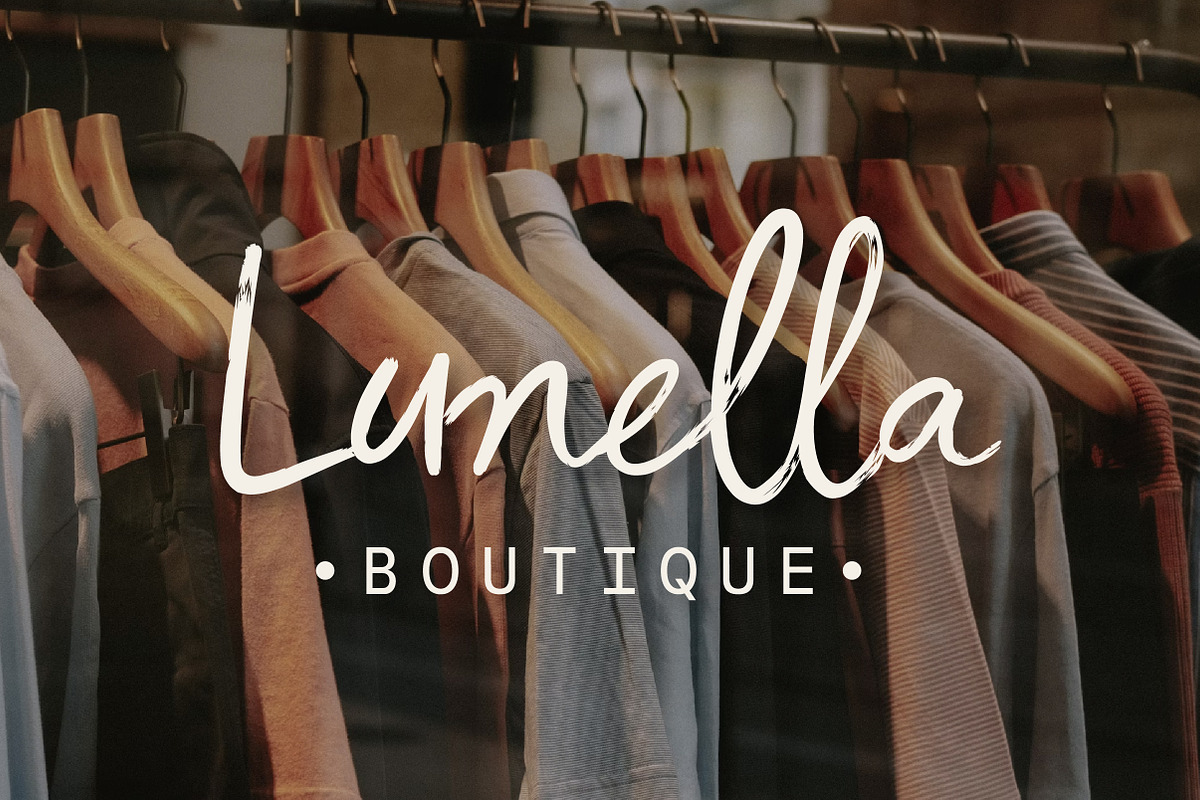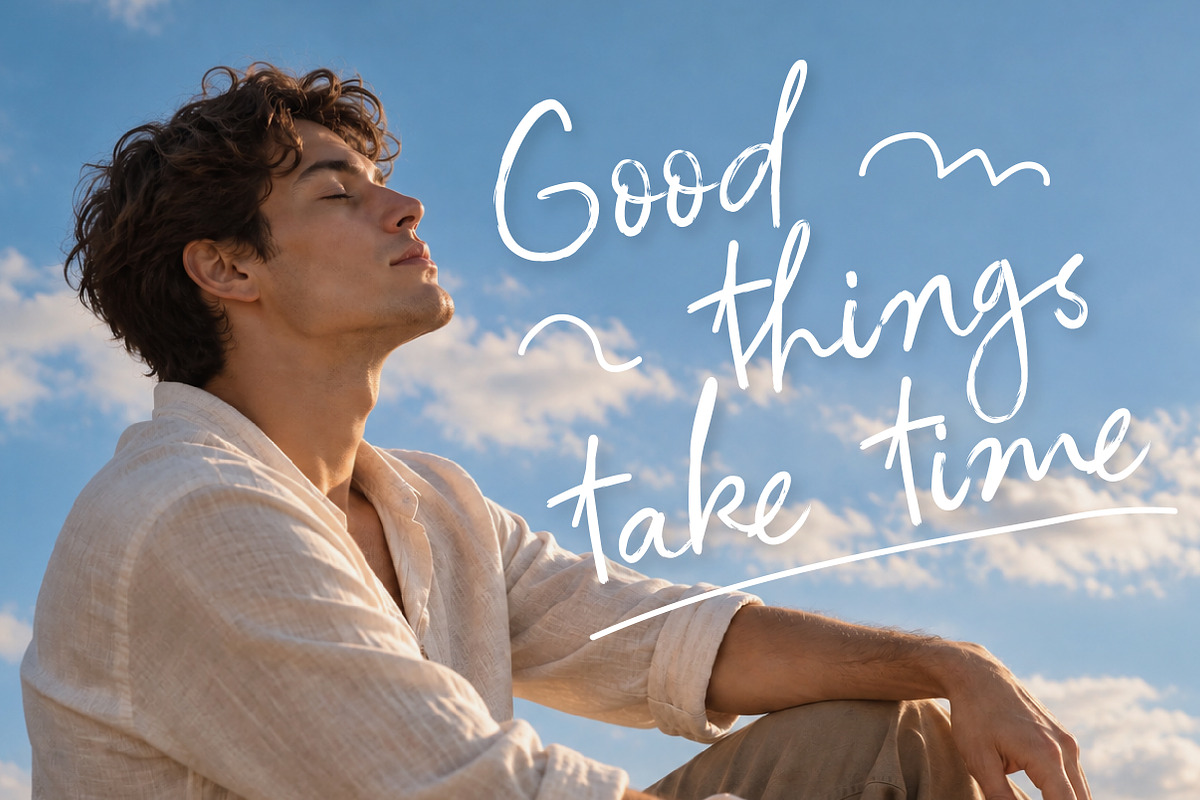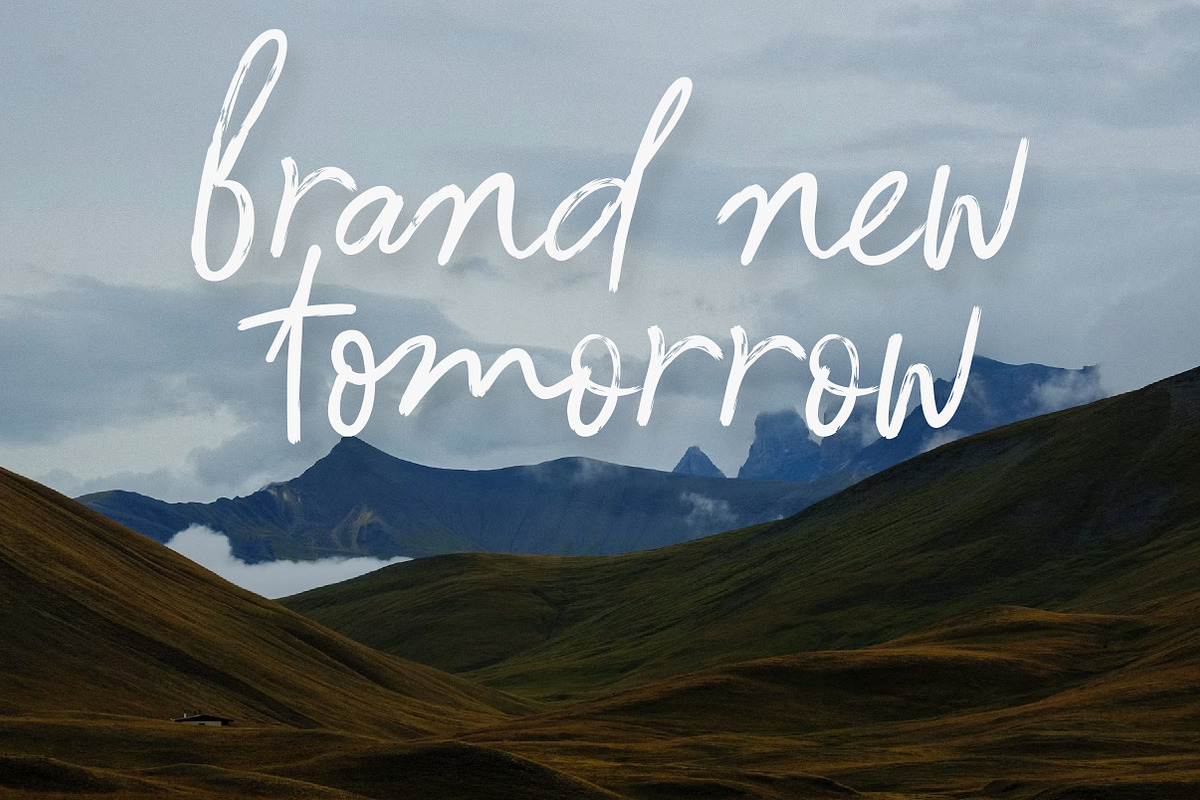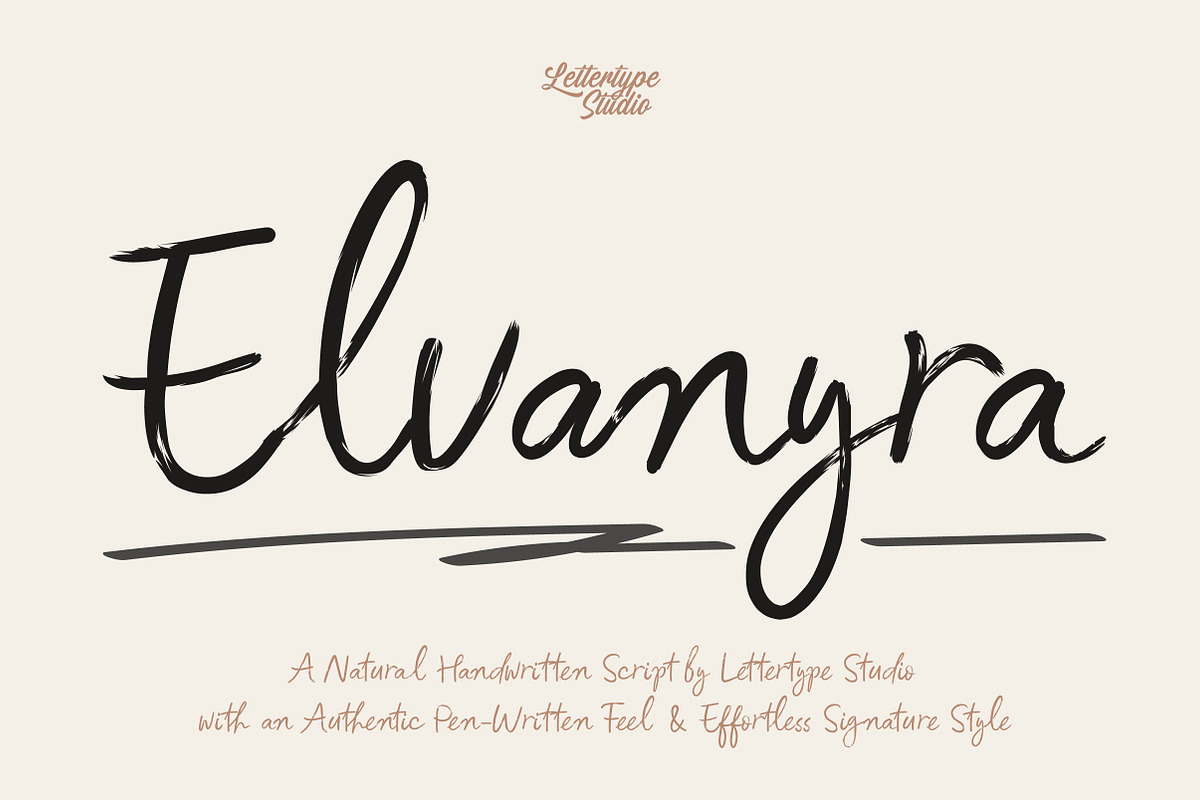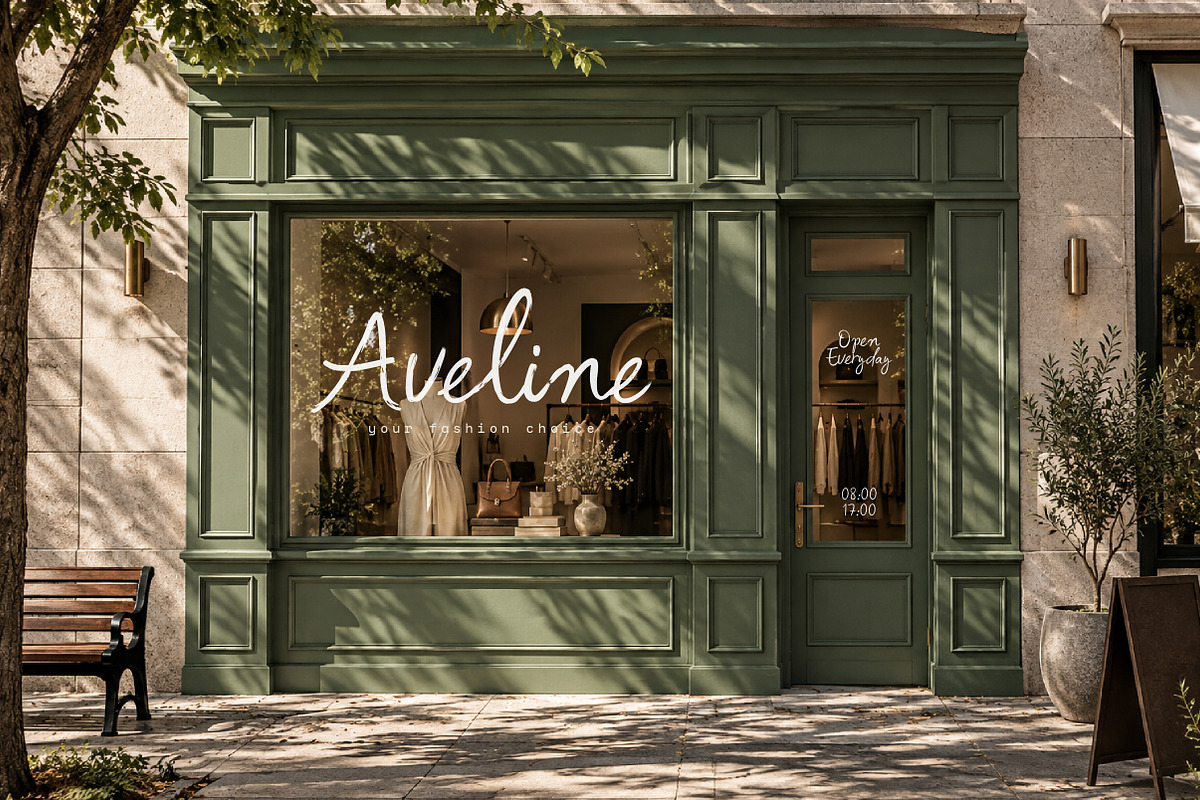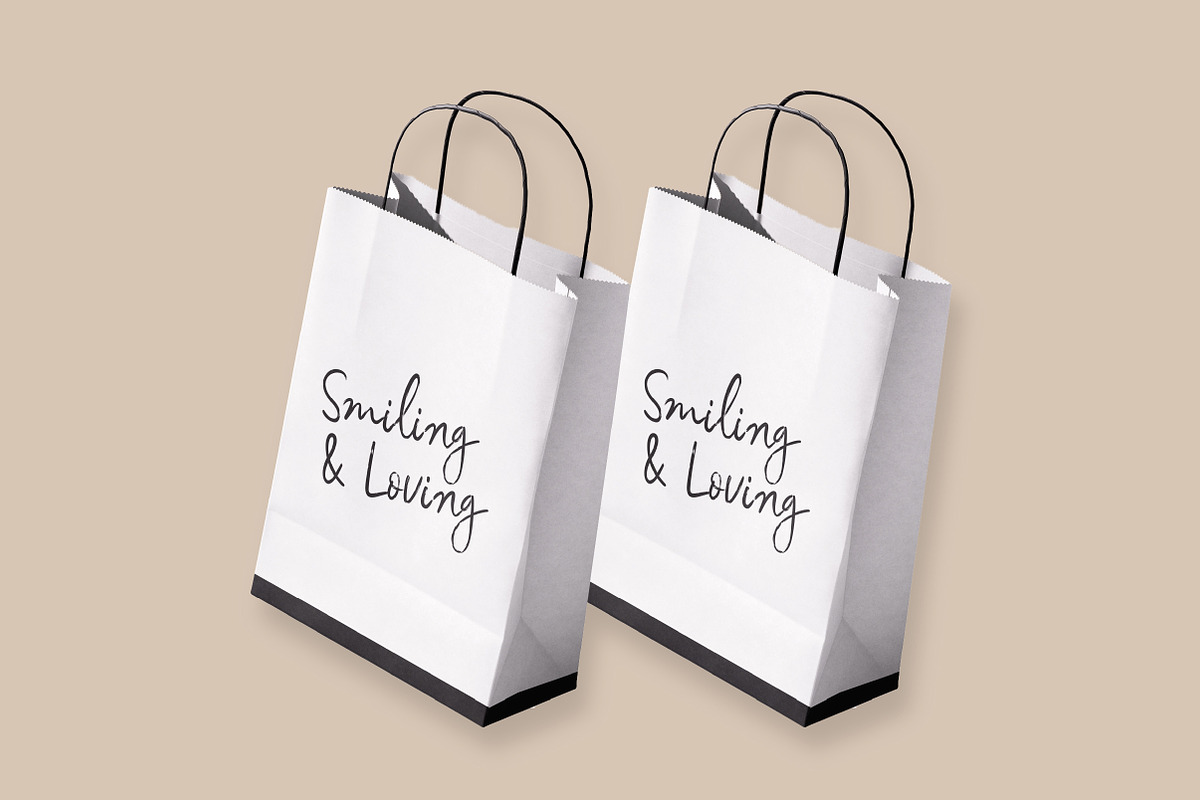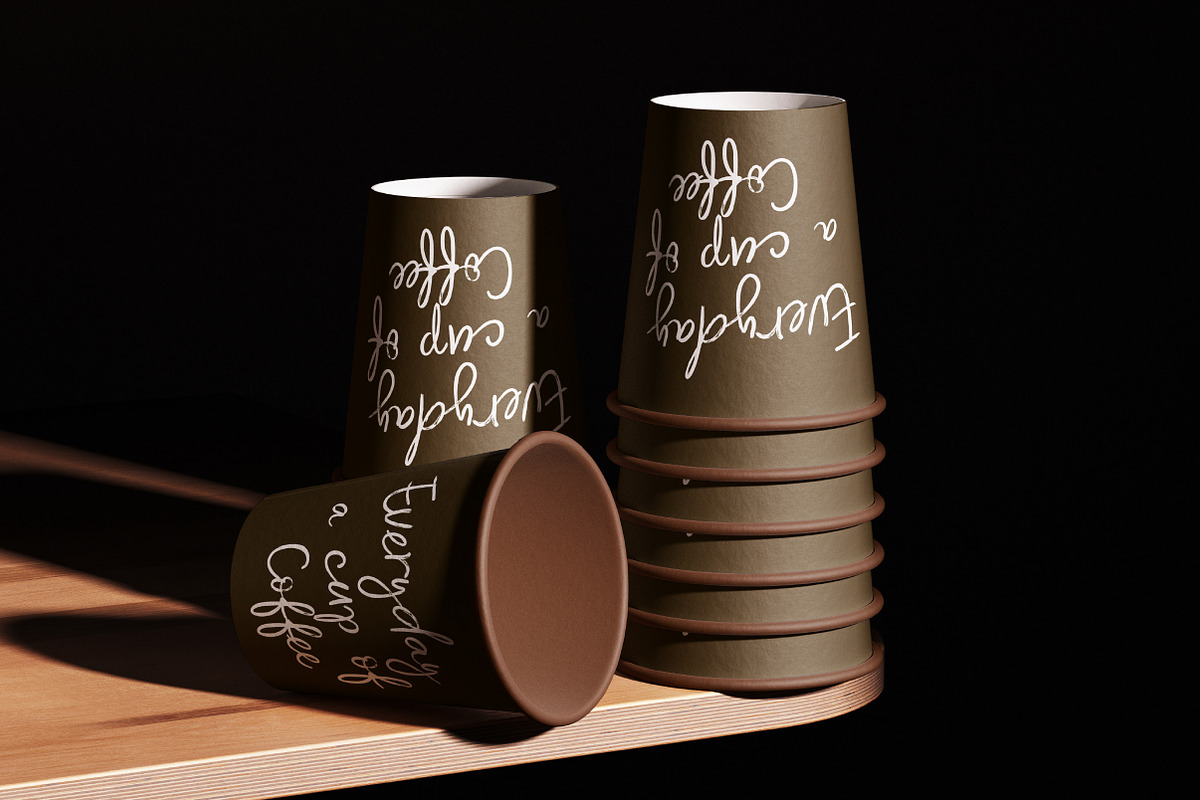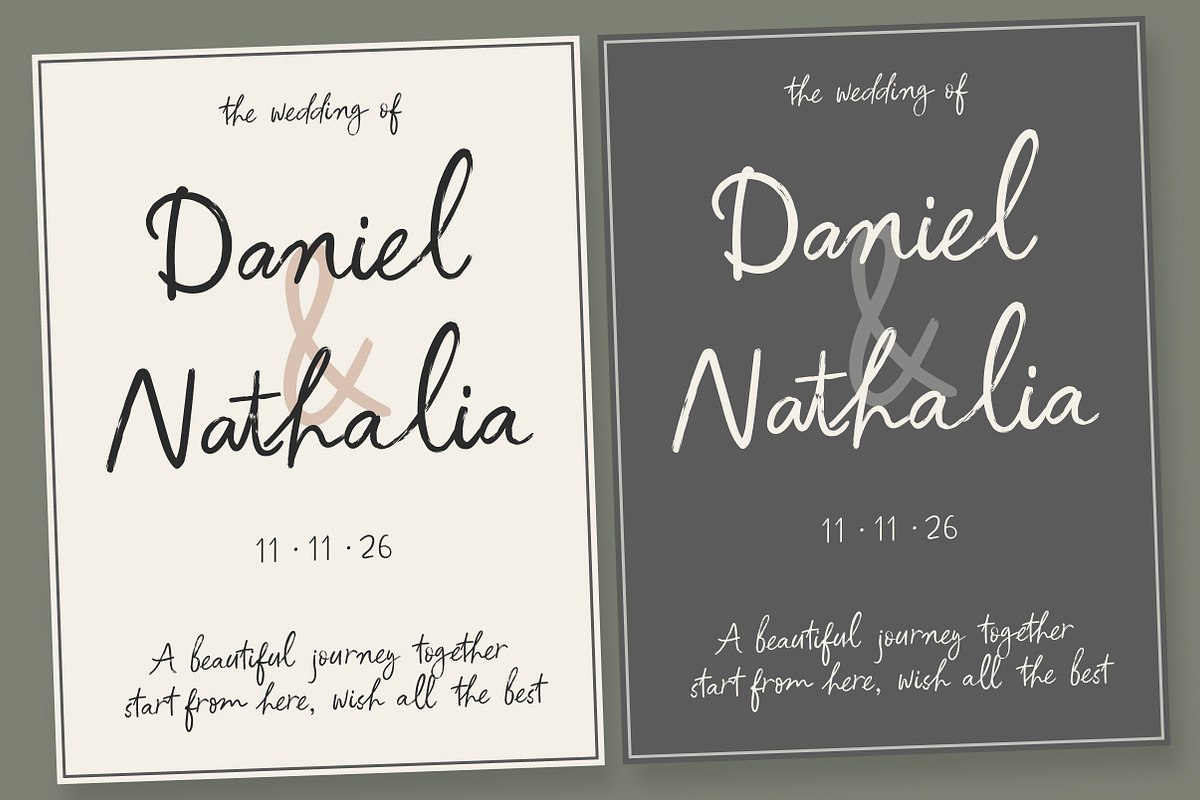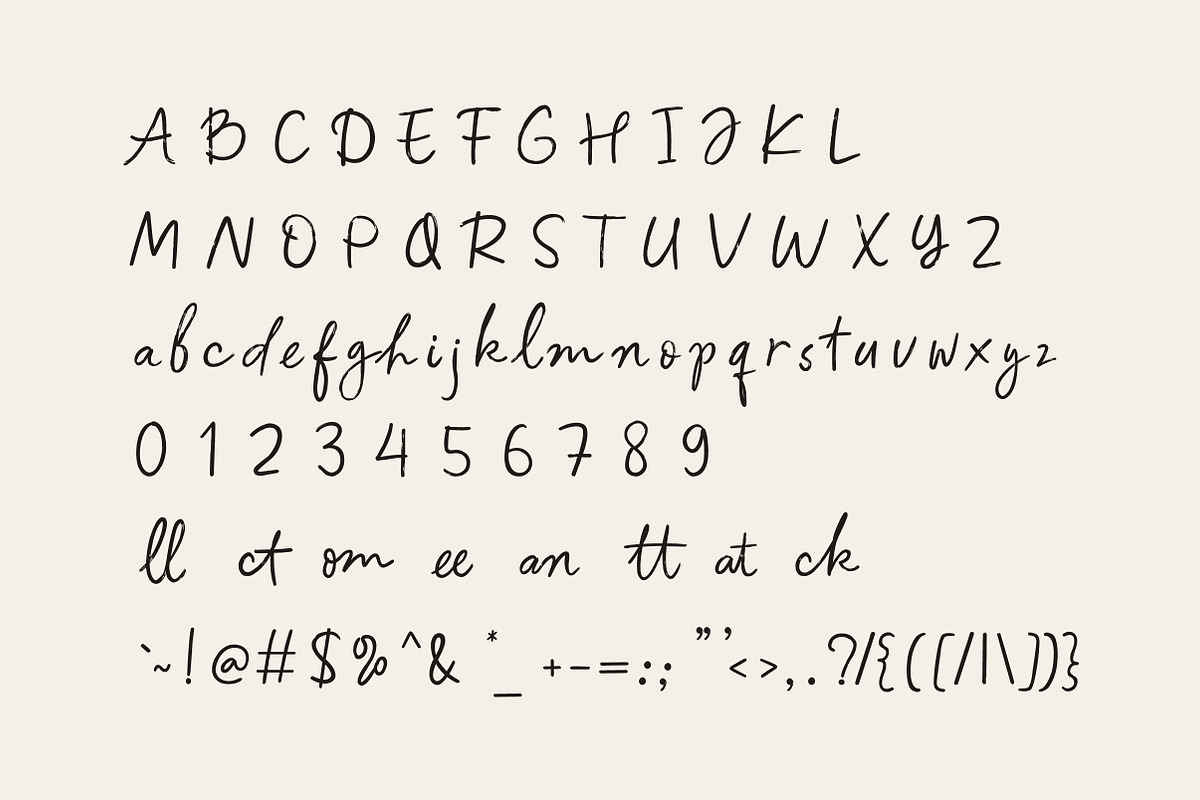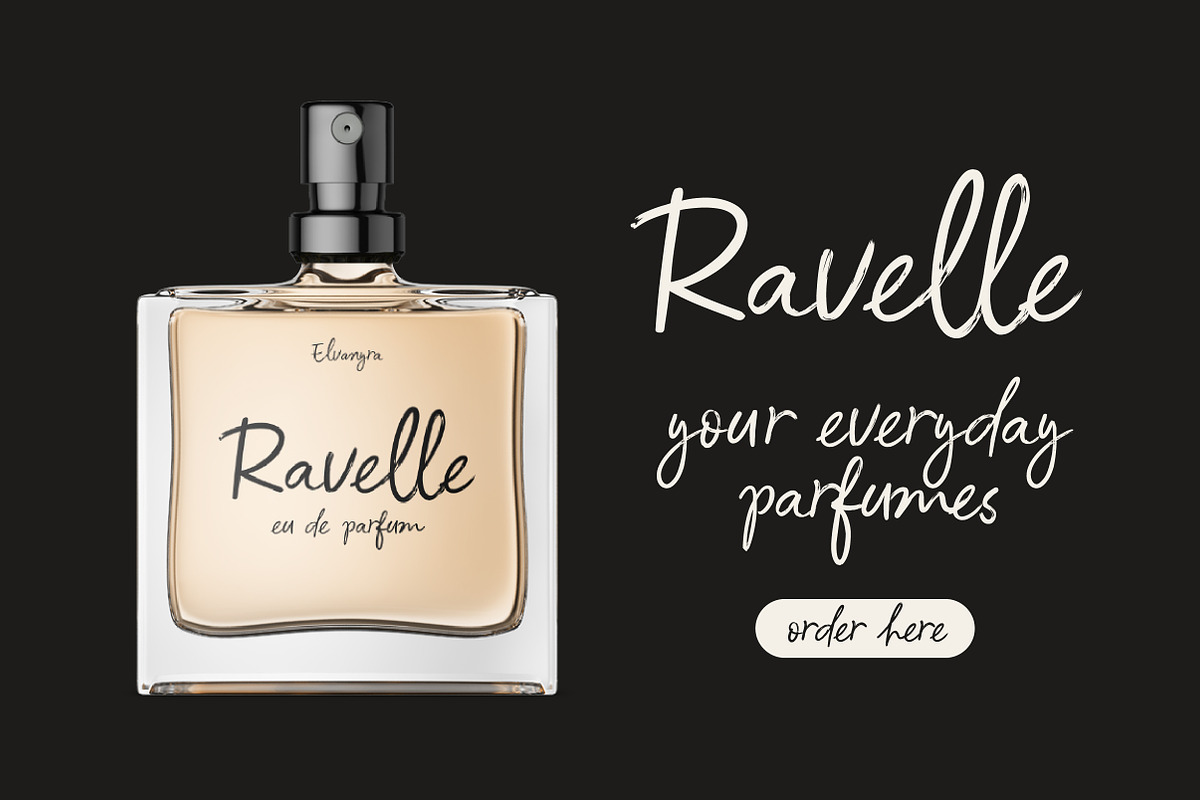
Elvanyra Natural Handwritten Script
Elvanyra is a natural handwritten script designed with an authentic pen-written character, flowing connections, and organic imperfections that make every word feel personal and expressive.
Its elegant yet casual rhythm brings warmth and personality to branding, editorial layouts, packaging, stationery, social media graphics, and modern lifestyle projects.
Elvanyra Features:
Ton of Stylistic Alternates
Branding & Logo Design
Fashion & Beauty
Packaging & Product Labels
Stationery & Invitations
Social Media & Editorial Graphics